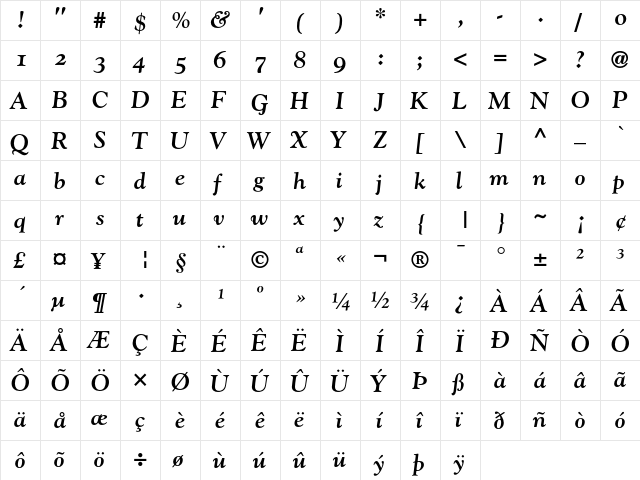
Goudy Bold Italic Old Style Figures Font Preview
Goudy Bold Italic Old Style Figures
Design Context for Goudy Typeface
Goudy offers clean, dependable letterforms without strong stylistic allegiance, making it a practical choice for designers who need flexibility. The dynamic lean of this cut emphasises speed and emphasis in any layout. Its bold stroke weight gives it real presence on the page.
Pro Tip: Use Goudy for emphasis, pull quotes, and subheadings where its slanted energy can add rhythm to the layout.